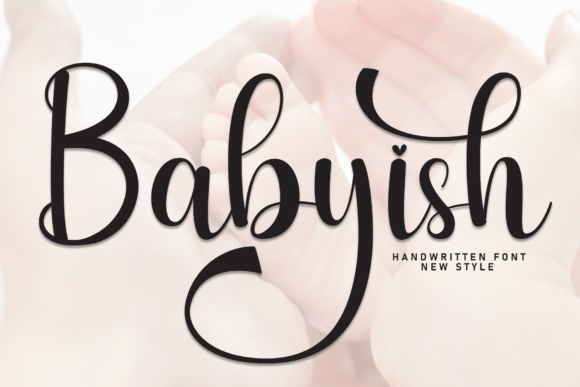
The Sweet Spot of Design: Discovering the Allure of Babyish Font
Who hasn’t experienced that magical moment when the perfect font clicks, and your design suddenly springs to life? It’s a feeling of serendipity, a spark of creativity that sets your imagination ablaze. For designers, this moment is what makes all the late nights and endless iterations worth it. And for those who’ve stumbled upon the Babyish Font, they know exactly what we’re talking about.
This stylish handwritten script font has captured the hearts of many, and for good reason. With its fluid, elegant strokes, Babyish Font adds a personal touch to any design, making it perfect for branding, invitations, and stationery. Its smooth curves and natural flow create a timeless, refined look that’s hard to resist. Whether you’re a seasoned pro or just starting out, Babyish Font is a valuable addition to any designer’s toolkit.
Babyish Font Key Features
- Unique Characteristics: Babyish Font features a playful, handwritten style with subtle imperfections, giving it a personal and emotive feel.
- X-Height and Stroke Width: The font’s x-height and stroke width are carefully designed to create a balanced and harmonious appearance, making it easy to read and use.
Designer Review: Babyish Font
Overall, I found the Babyish Font to be a cute and playful addition to any design project. ✨ Here are a few things that stood out to me:
- Unique and whimsical feel: The Babyish Font is perfect for projects that need a touch of nostalgia and playfulness.
- Versatile: It can be used for a wide range of designs, from children’s books to greeting cards and more.
- Good legibility: The font is easy to read, even at smaller sizes.
However, I did encounter some limitations ⚠️:
- Not suitable for professional or formal projects: The Babyish Font is a bit too playful and whimsical for serious or formal designs.
- Limited font weights: The font only comes in a few weights, which can limit its versatility in certain projects.
Overall, I think the Babyish Font is a great addition to any designer’s toolkit. It’s perfect for projects that need a touch of whimsy and playfulness. Just be aware of its limitations and use it judiciously.
Getting the Most Out of “Babyish Font”
To get the most out of “Babyish Font,” use it for:
- Cartoon-style graphics
- Quirky marketing materials
Remember to pair “Babyish Font” with other playful fonts and graphics to create a cohesive look.
“Babyish Font” is commonly used for:
- Children’s product branding
- Toy packaging design
- Children’s book covers
It’s a fun and playful font that
Alternatives to “Babyish Font” for Designers
Great Vibes is a whimsical, handwritten font ideal for creating a playful and carefree atmosphere. It features flowing lines and a casual tone, making it suitable for designs that require a lighthearted feel. Unlike Babyish Font, Great Vibes is more versatile and can be used in a variety of contexts, from branding to advertising.
Pacifico is a modern, elegant script font that evokes a sense of sophistication and refinement. It’s perfect for designs that require a touch of luxury and sophistication, such as high-end branding or wedding invitations. While Babyish Font is more playful, Pacifico is more refined and suitable for formal occasions.
Crimson Text is a serif font that offers a classic, timeless feel. It’s ideal for designs that require a sense of tradition and heritage, such as historical reenactments or luxury brands. Unlike Babyish Font, Crimson Text is more formal and structured, making it suitable for formal documents and presentations.